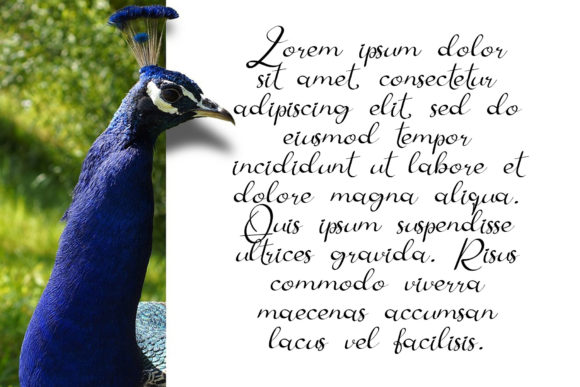
Birthday Christmas Font
db-ku.com - Script & Handwritten -- Birthday Christmas is a stylish and incredibly elegant script font. It looks stunning on wedding invitations, thank you cards, quotes, greeting cards, logos, business cards and every other design which needs a handwritten touch.